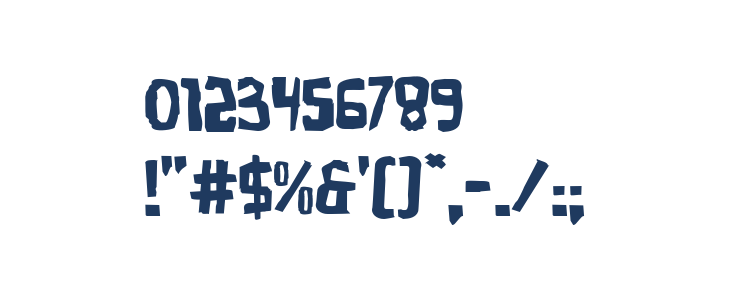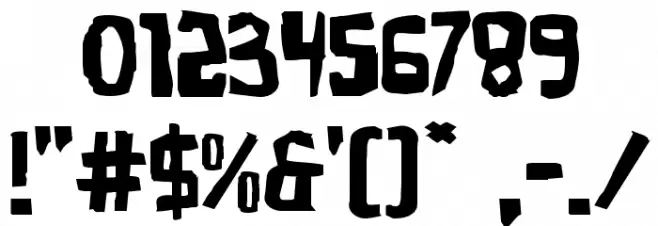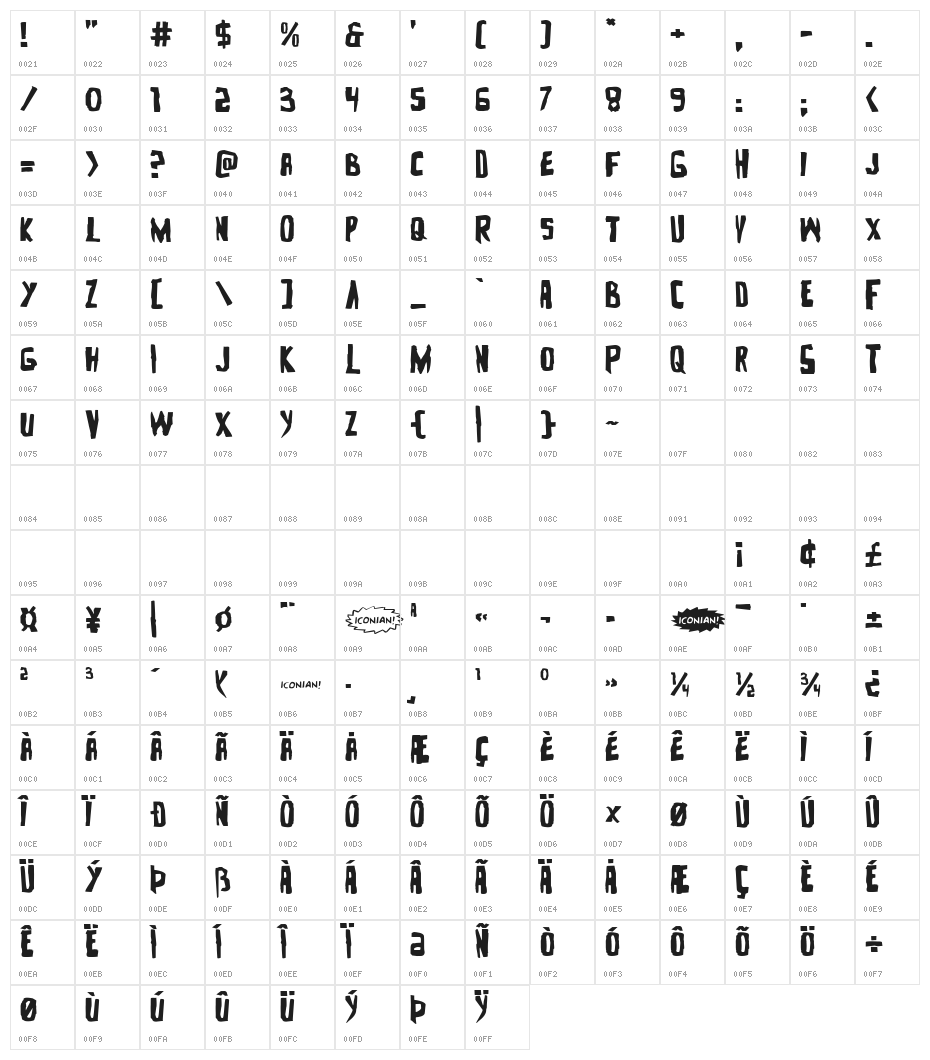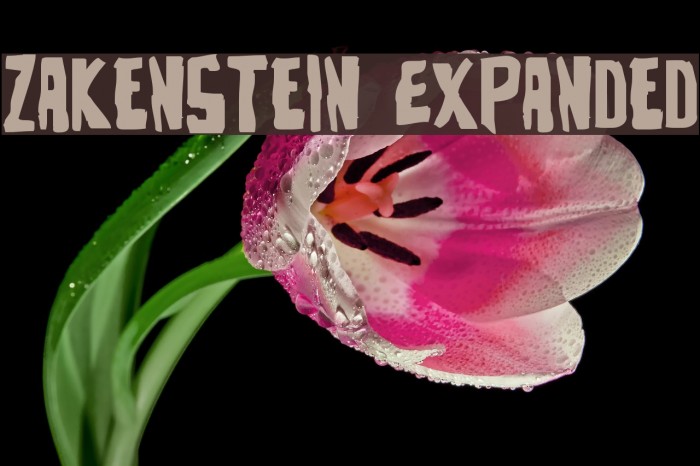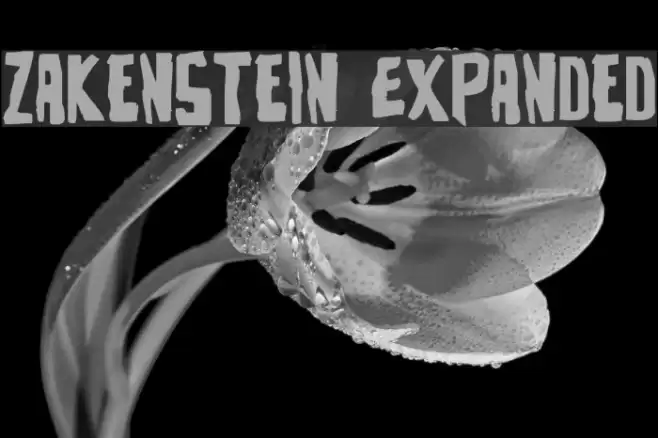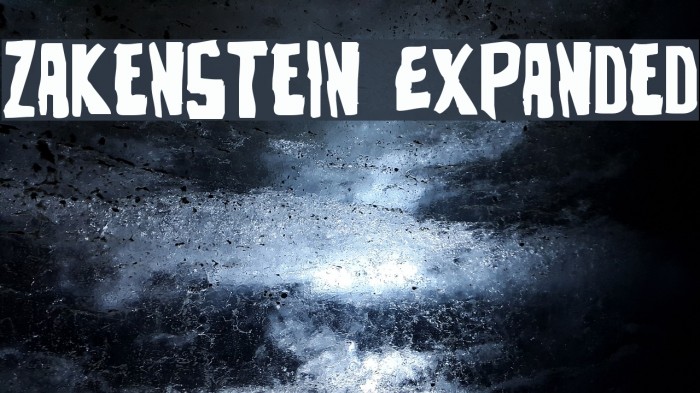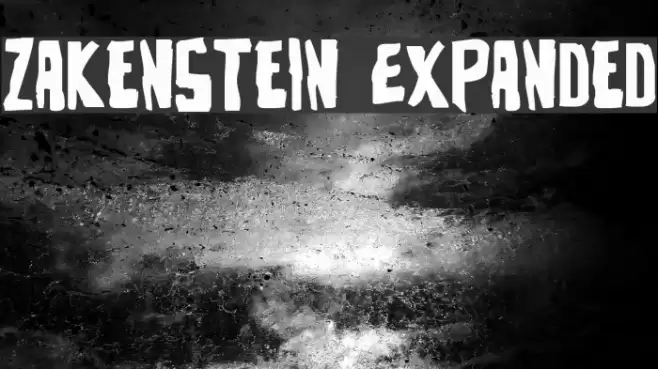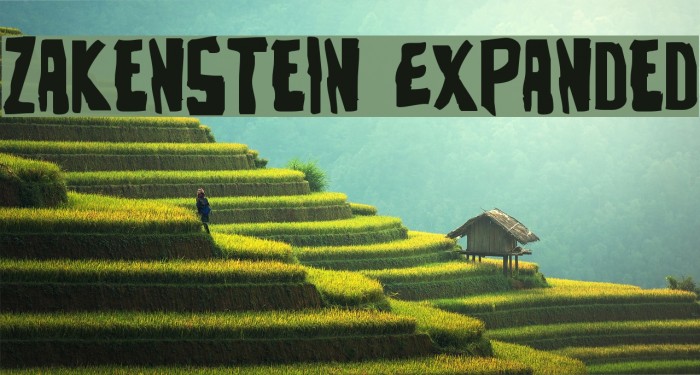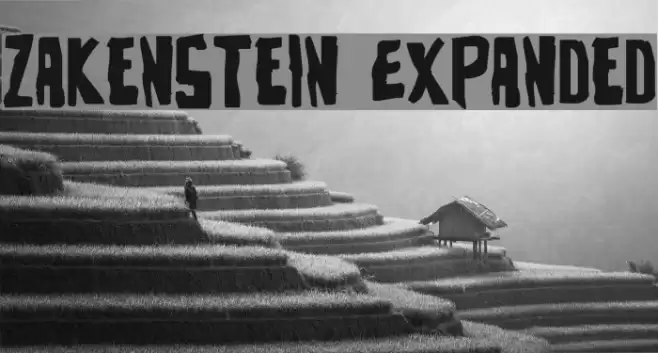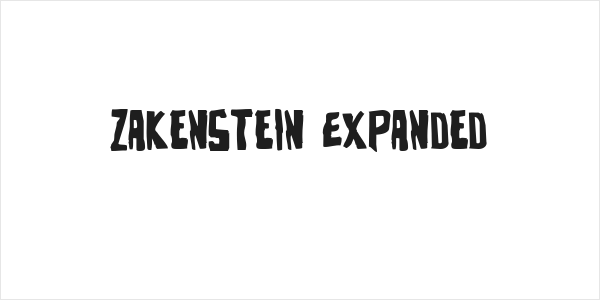
Zakenstein Expanded Font
Zakenstein Expanded Description
This font features a bold and dynamic style with irregular, jagged edges that give it a hand-drawn, artistic appearance. The characters are uniquely shaped, with varying widths and heights, creating a sense of movement and energy. The uppercase letters are particularly striking, with exaggerated angles and curves that make them stand out. The numbers and special characters maintain the same bold, expressive style, ensuring consistency across the font. Its distinctive look makes it suitable for projects that require a strong visual impact.